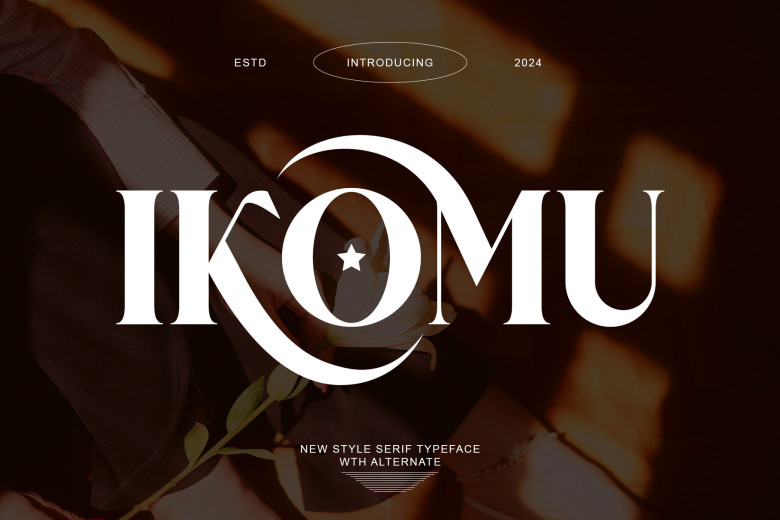
Ikomu Font
Ikomu is an ingenious ornate serif typeface of the highest class. This font is perfect to create a brochure, business card, headline, poster, and website and it has a tone which is contemporary/retro. Hand picked for their compatibility and waiting for your order to get down and dirty for your next design!If you are in need of a font that offers a hint of sophisticated, stylish, classy, chic and modish for your designs, this font is here for you.
Ikomu Serif Font